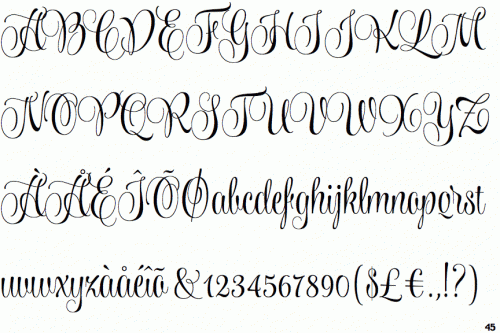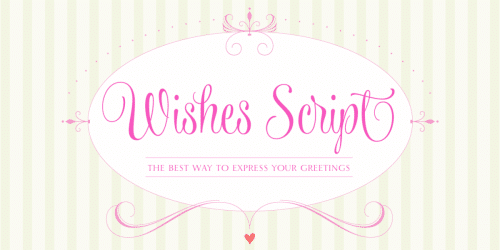
Wishes Script is the best way to express your greetings! All you want to say is more gorgeous when using this pretty font, since it beautifies every message. Programed with Open Type, Wishes offers the designer a complete range of possibilities: frames, ribbons, hearts, flowers, ornaments, swashes, endings, ligatures and all the alternates you need to make a wonderful work.
With delicate and flowing curves which blend english style with lettering, Wishes Script works perfectly in greeting cards, invitations, weddings, posters, magazines, fashion world, logos, packagings, etc. Additionally, it can be used in small and big formats, due to its Display and Text styles.
It works perfectly in both small and large sizes, preserving the delicacy of its thin strokes and ensuring them to be printed accurately in smaller sizes. You can get both styles in the Light, Regular and Bold weights.
With more than 990 glyphs, the Pro Version of each option includes: Caps, (that match well with the style of the font, being a super legible way of writing) and a complete set of 197 ornaments that makes a perfect decoration. Caps and Ornaments are sold separately too!